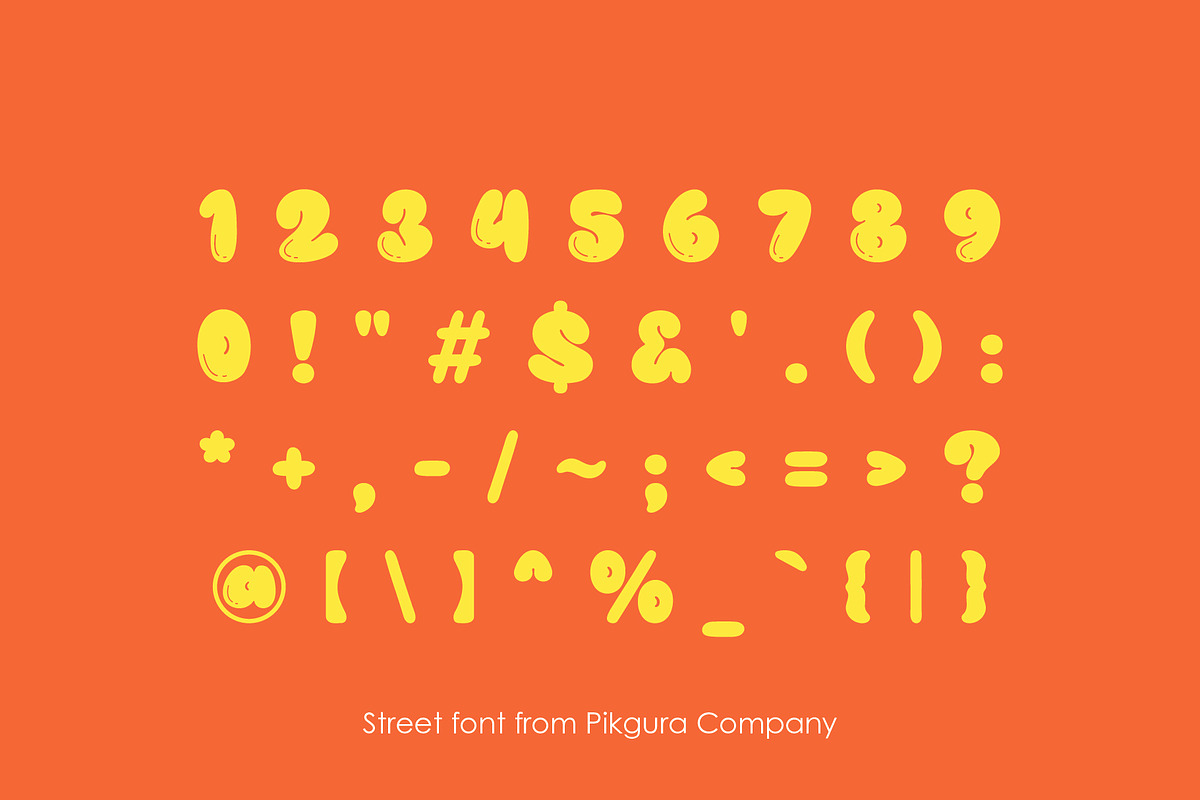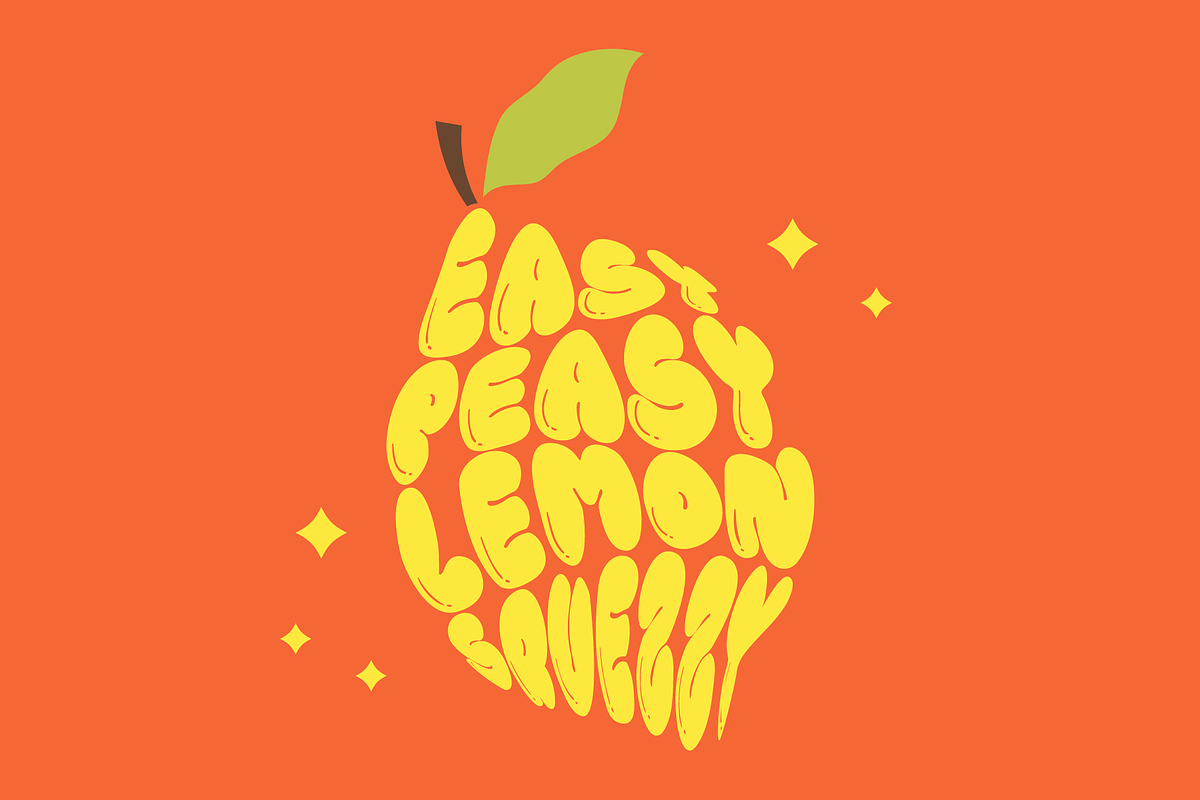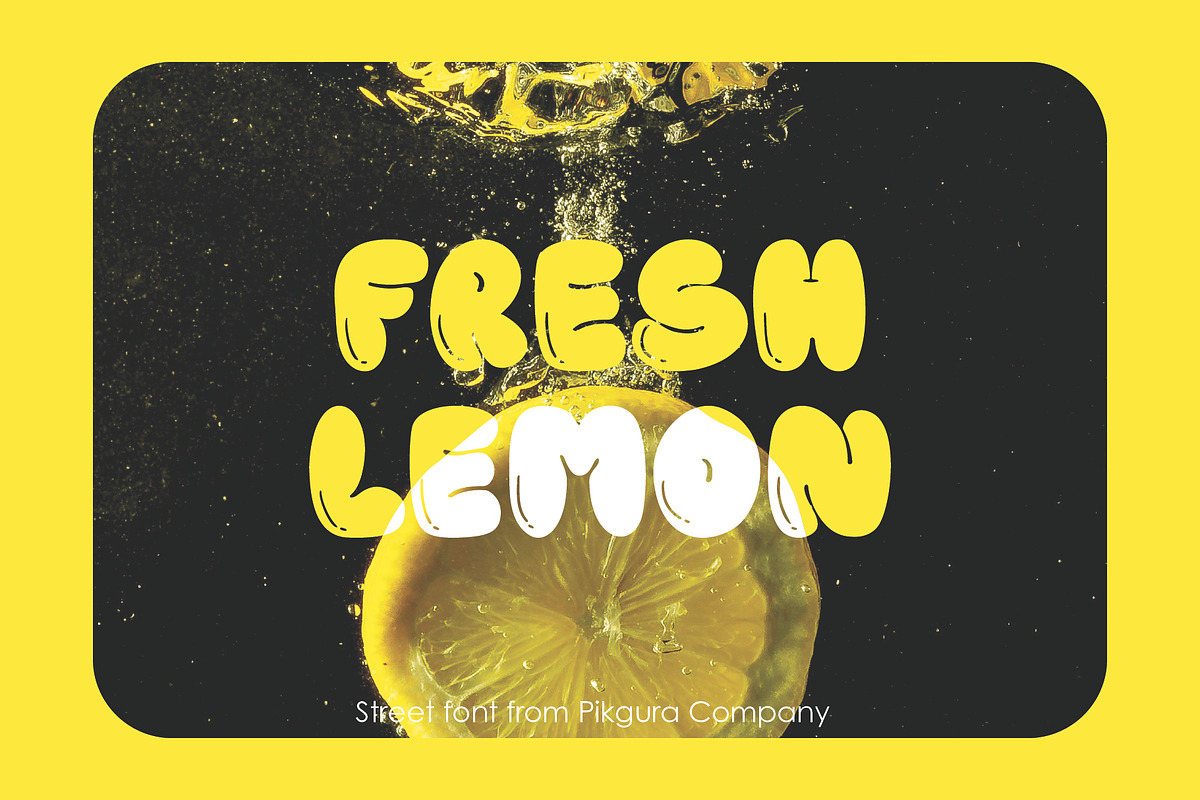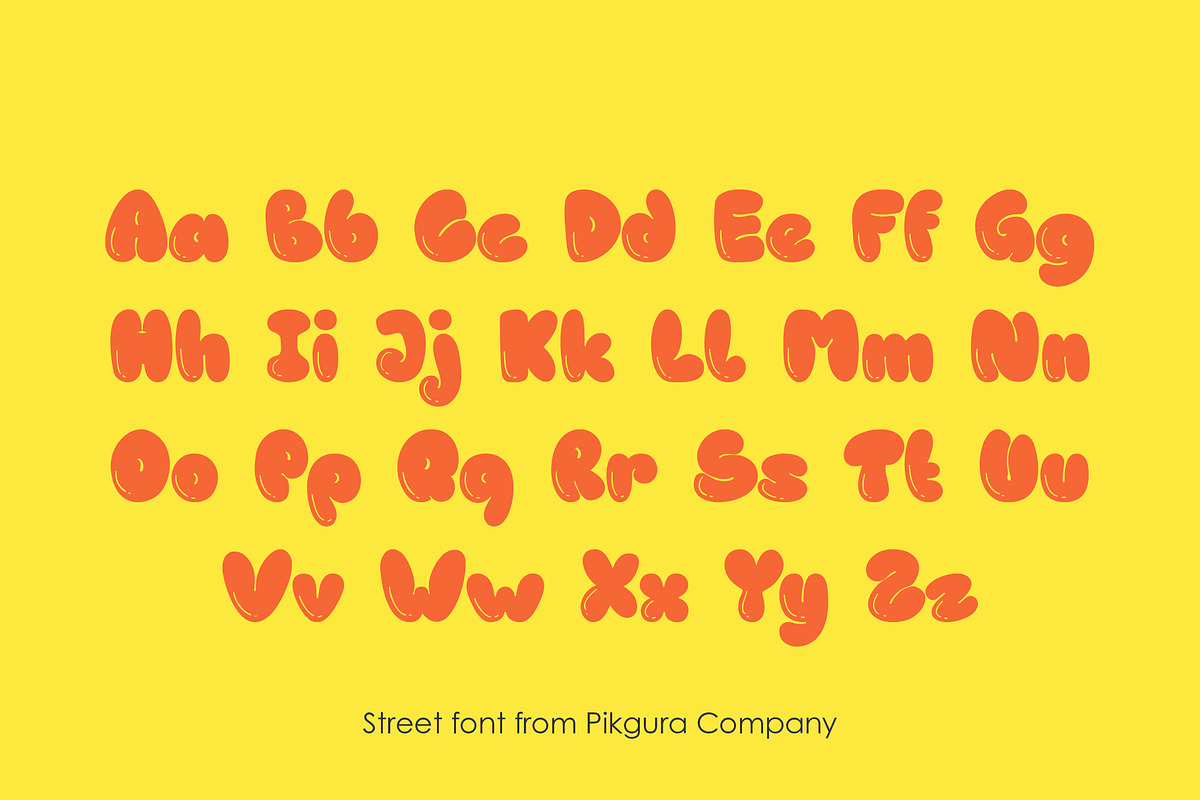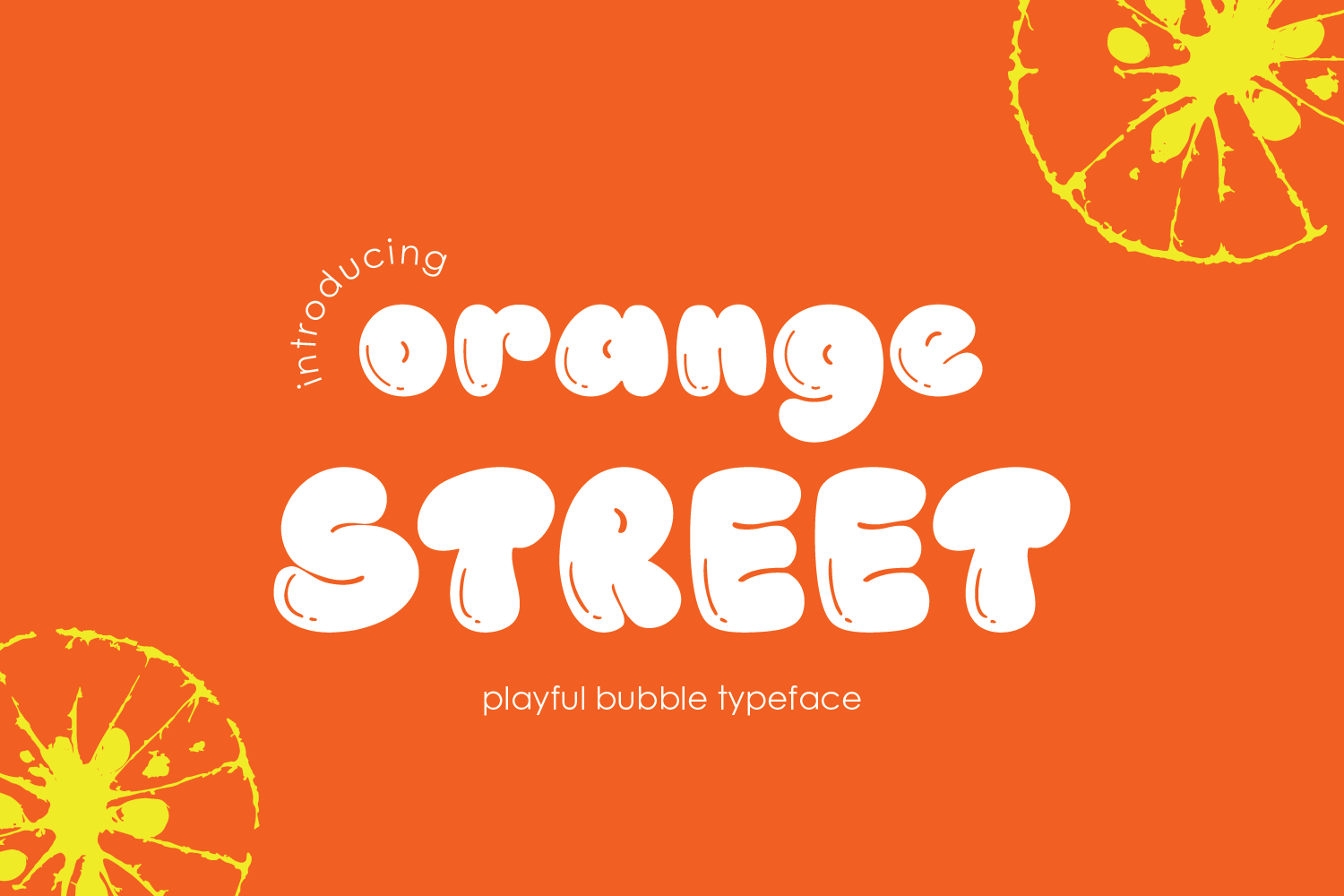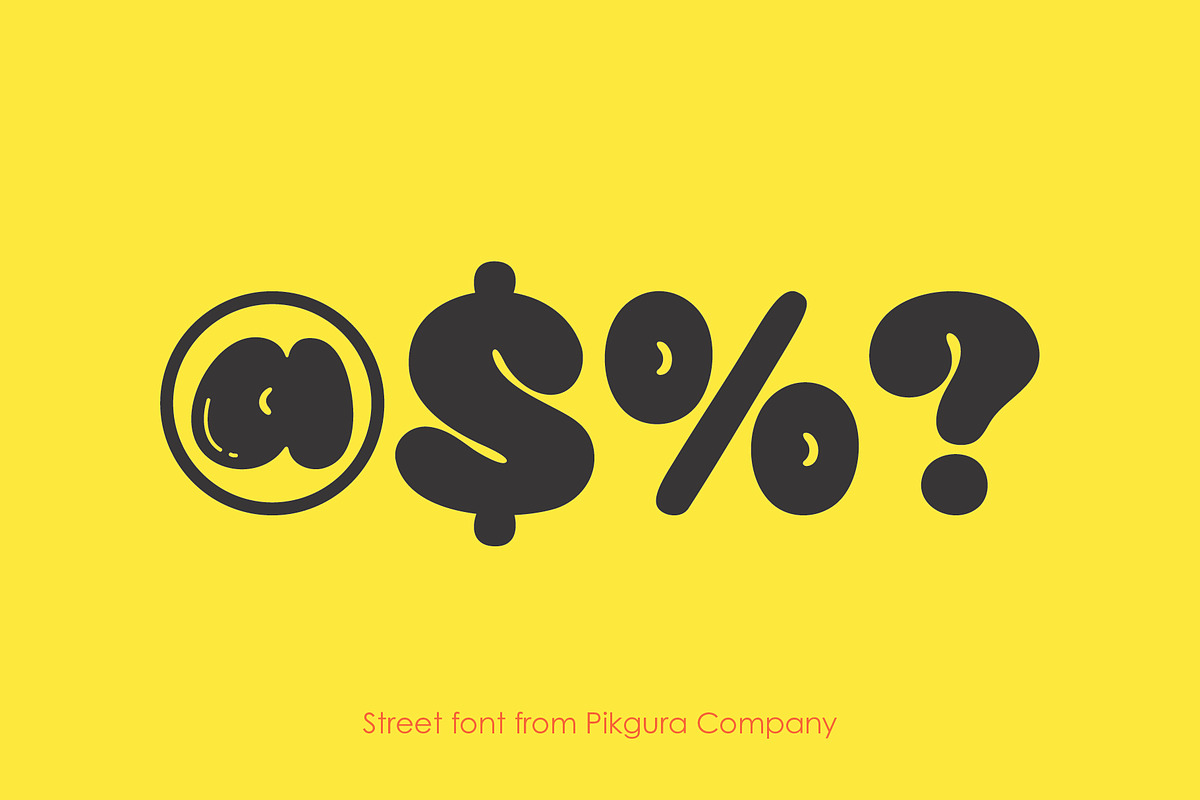
PGR Orange Street - Bubble Font
Introducing Orange Street, a vibrant and playful handmade font that’s bursting with energy and excitement! With its unique bubble style and thick line, this font is perfect for adding a touch of whimsy and fun to your designs. Whether you’re creating posters, kids’ magazines, greeting cards, or stickers, Orange Street is the perfect choice.